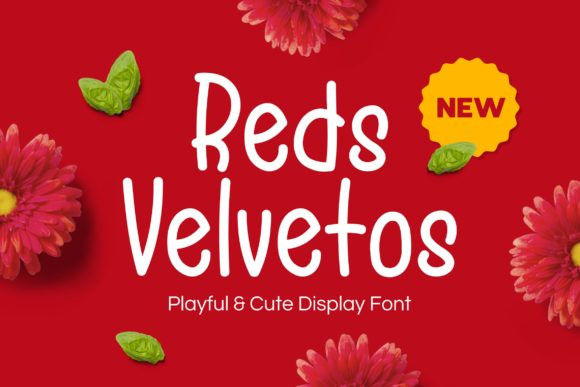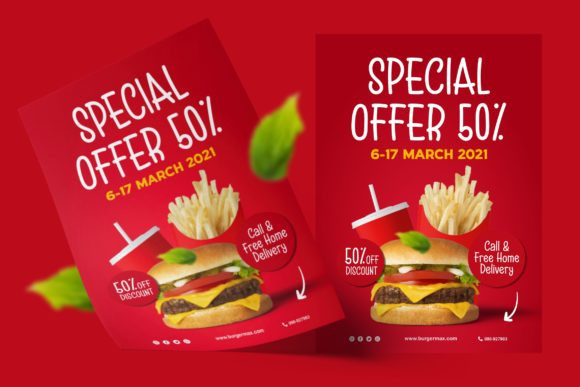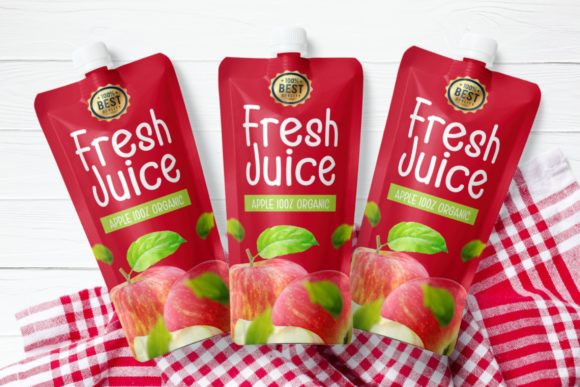
Reds Velvetos Font
Reds Velvetos is a jolly and simple display font. This font is perfect for children themed designs, especially when combined with bright colors.